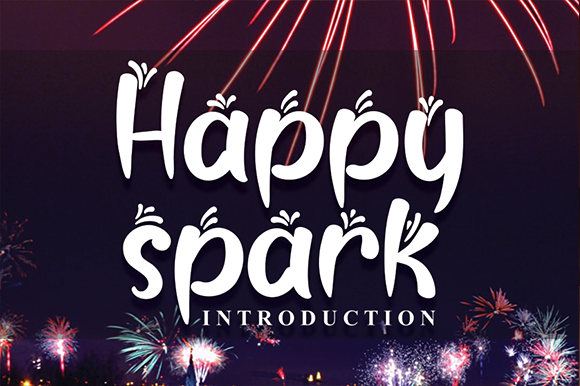
Have you ever been brainstorming a new project, and suddenly, a spark of inspiration hits you? The excitement is palpable, and you can’t wait to bring your idea to life. That’s the magic of creativity, and it’s a feeling we all strive to capture in our work. For designers, finding the perfect font can make all the difference in elevating a project from good to great.
Enter the Happy Spark Font, a delightful display font that embodies the essence of fun, quirkiness, and authenticity. This enchanting font is designed to turn any creative idea into a true standout, making it a valuable addition to any designer’s toolkit. Whether you’re working on a children’s book, a playful ad campaign, or a whimsical brand identity, the Happy Spark Font is sure to bring a smile to your face and a touch of magic to your design.
Happy Spark Font Key Features
- Unique Characteristic: The font features a unique blend of modern and playful elements, making it perfect for creative and fun designs.
Happy Spark Font Review
Overall, I have mixed feelings about the “Happy Spark Font”. While it has some great qualities, it also falls short in a few areas.
- Fun and playful aesthetic: The font is designed to evoke a sense of happiness and joy, which it succeeds in doing.
- High-quality design: The font is well-crafted and visually appealing, making it a great choice for designers looking for a fun and quirky option.
- Good for social media and marketing materials: The font’s playful nature makes it a great fit for social media and marketing materials where a more lighthearted tone is desired.
- Limited versatility: While the font is great for social media and marketing materials, it may not be the best choice for more formal or professional projects.
- Lack of subtlety: The font’s playful nature can sometimes come across as too loud or overwhelming, which may not be suitable for all projects.
- Not ideal for body text: Due to its playful nature, the font may not be the best choice for body text, as it can be difficult to read in large quantities.
In conclusion, the “Happy Spark Font” is a fun and playful option that can be a great choice for the right project. However, it may not be the best fit for more formal or professional projects.
The Happy Spark Font is perfect for creating playful and eye-catching designs. Use it for:
1. Social media graphics and ads.
2. Party invitations and decorations.
3. Branding and logos.
4. Children’s products and packaging.
Remember to adjust the font size and style to your liking to get the most out of the Happy Spark Font.